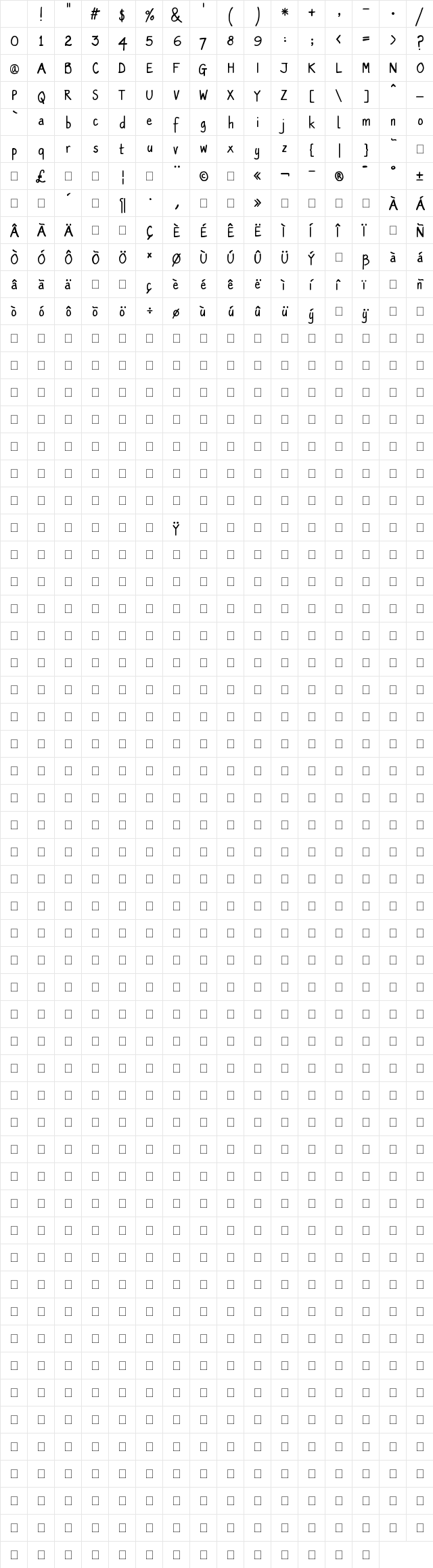
PT Script Eclipse flows with the natural rhythm of handwritten lettering, making it ideal for designs that call for warmth and personal expression.
Font Pairing: Combine PT Script Eclipse with a simple geometric sans for maximum contrast - the tension between flowing curves and clean structure is a classic typographic pairing.
Pro Tip: Use PT Script Eclipse for short runs of text - names, titles, or taglines. Extended body copy in script faces tires the eye quickly.